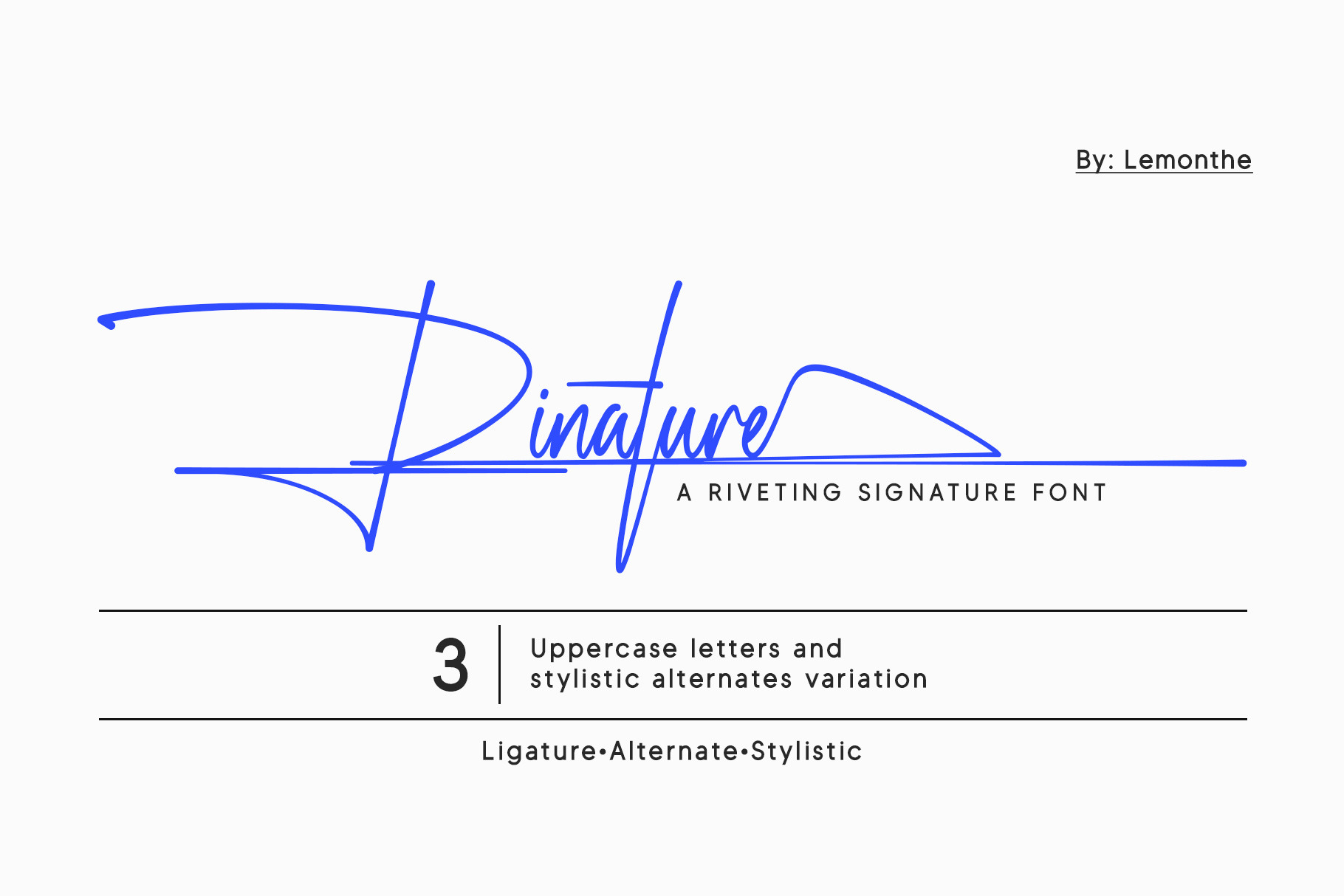
Rinature | Signature Font
Rinature is a riveting and stylish signature font. It comes with 3 variations of uppercase letters and complete lowercase stylistic alternates from a to z, allowing you to easily combine them. This font is carefully crafted to maintain an elegant, stylish, readable, and easy to use. Rinature font is highly suitable for various design projects such as logo and branding, business cards, labels, cover designs, tags, or any design that requires a signature touch.
- Stylistic Alternate